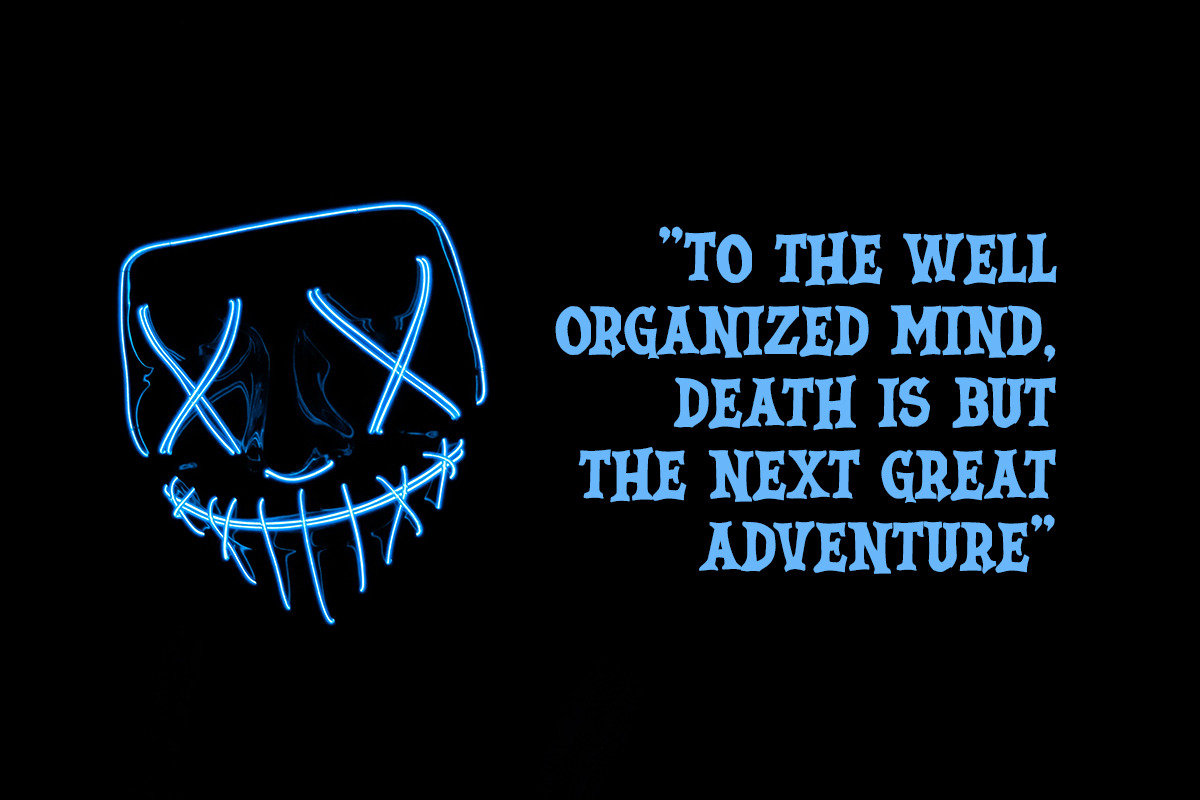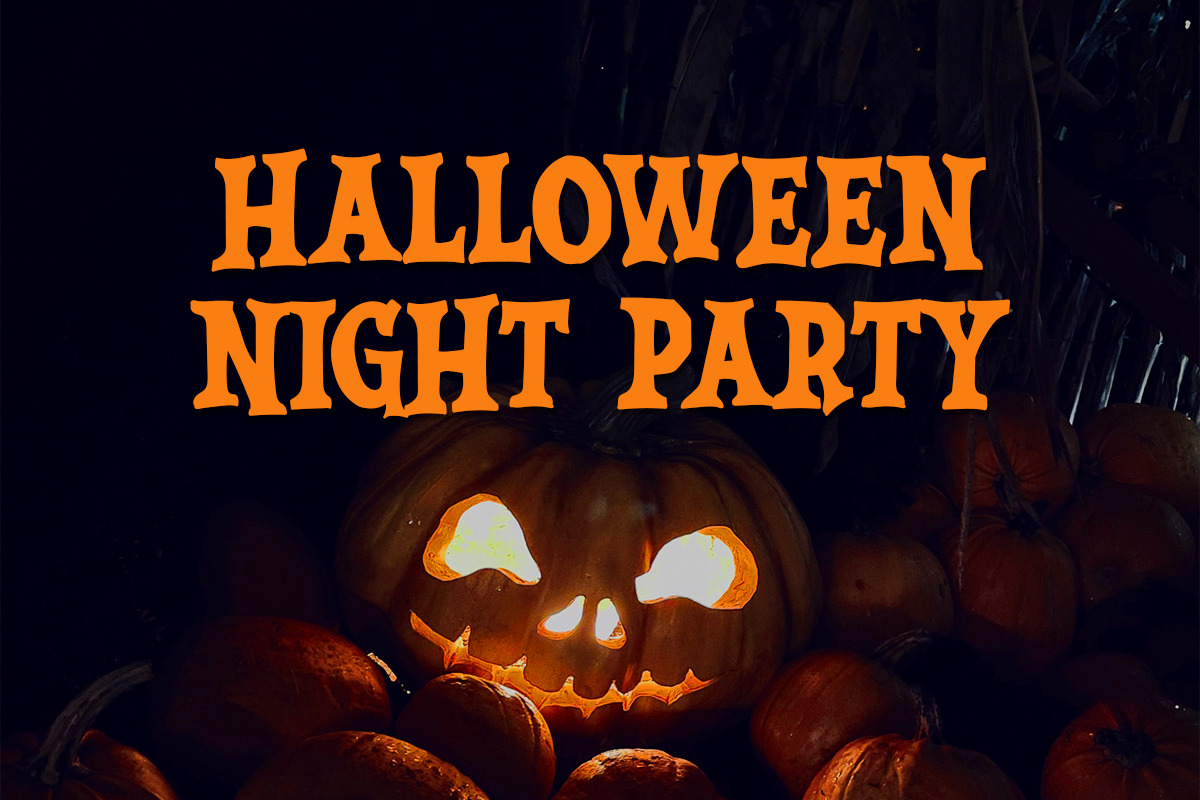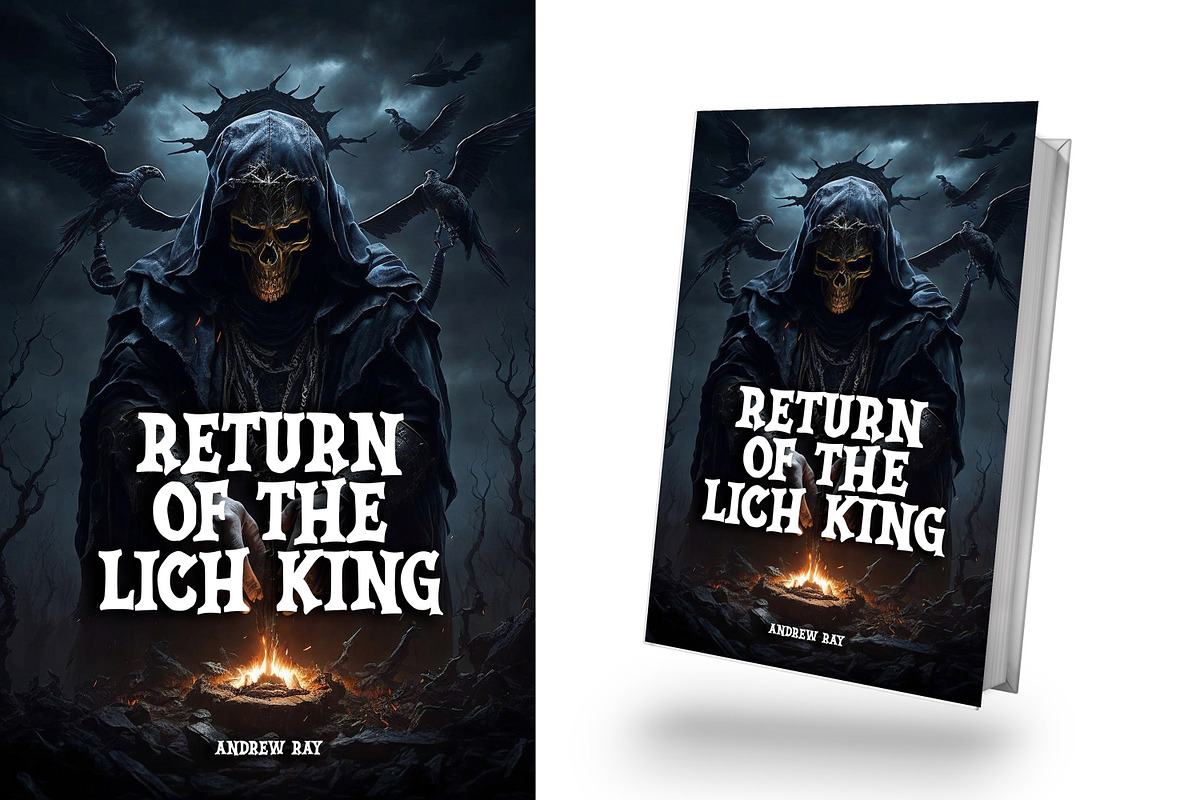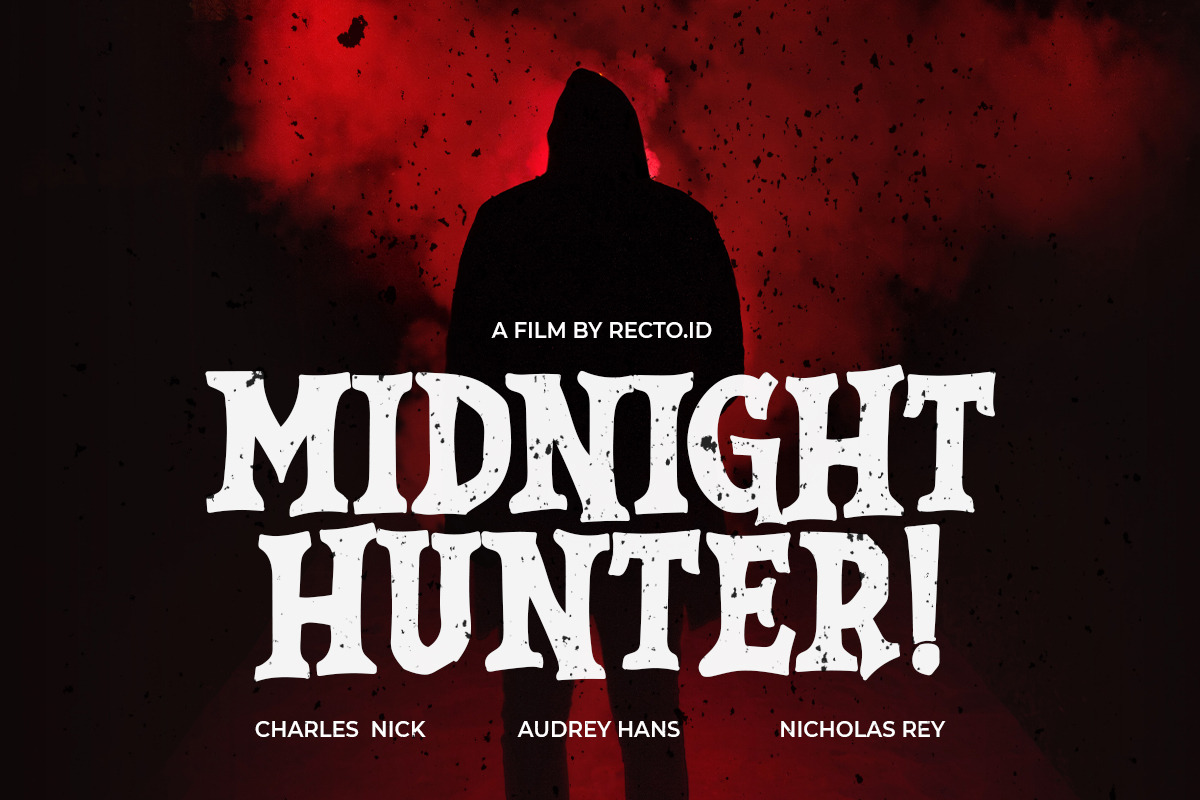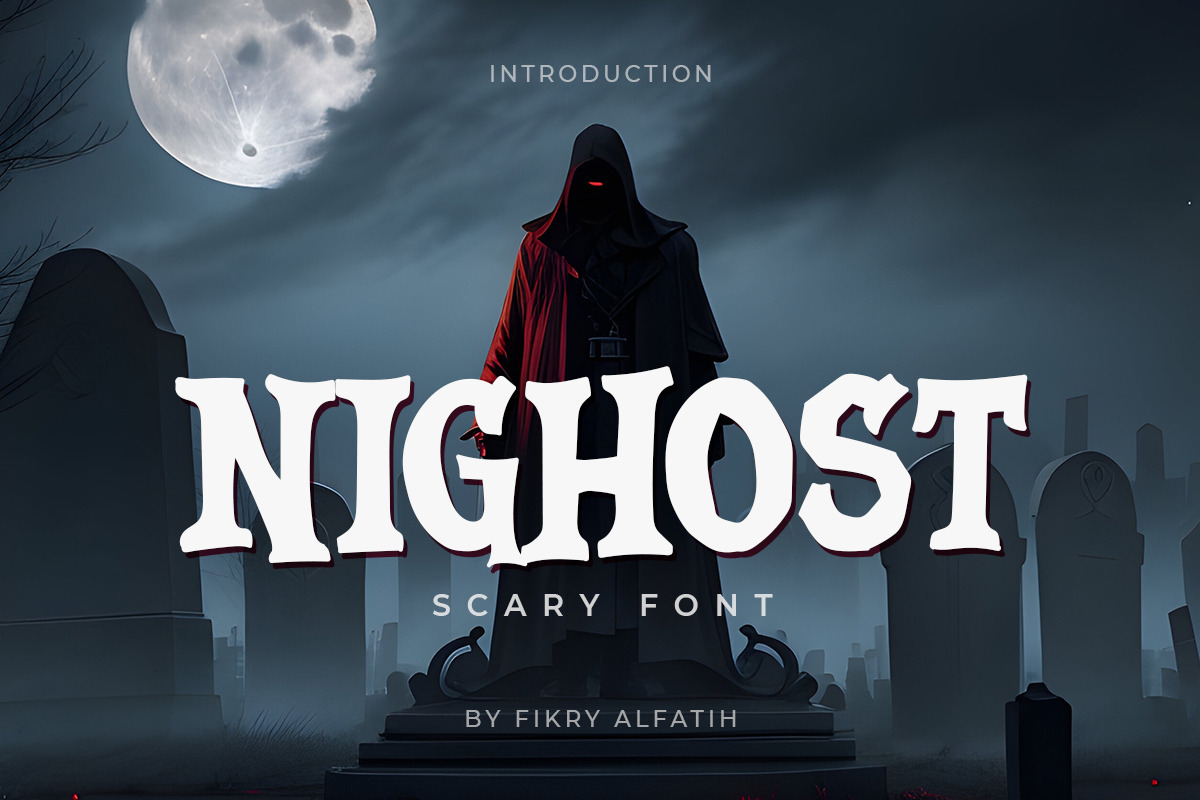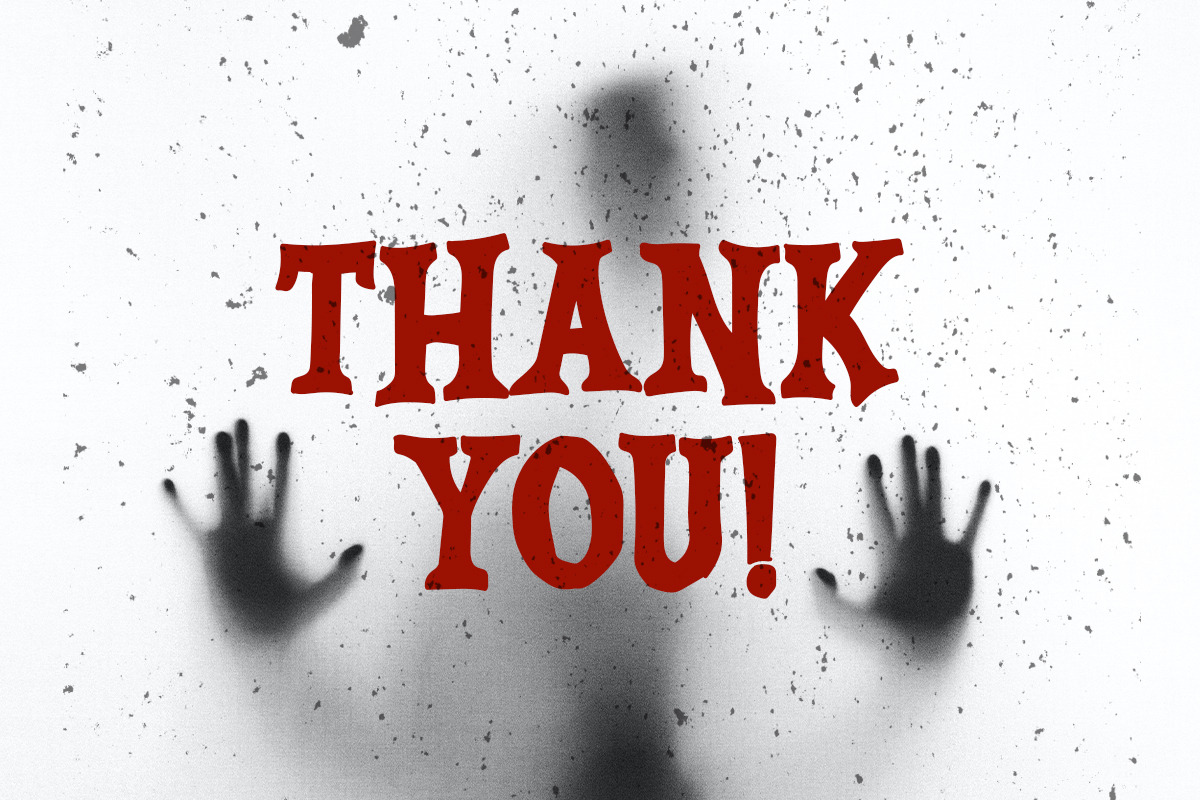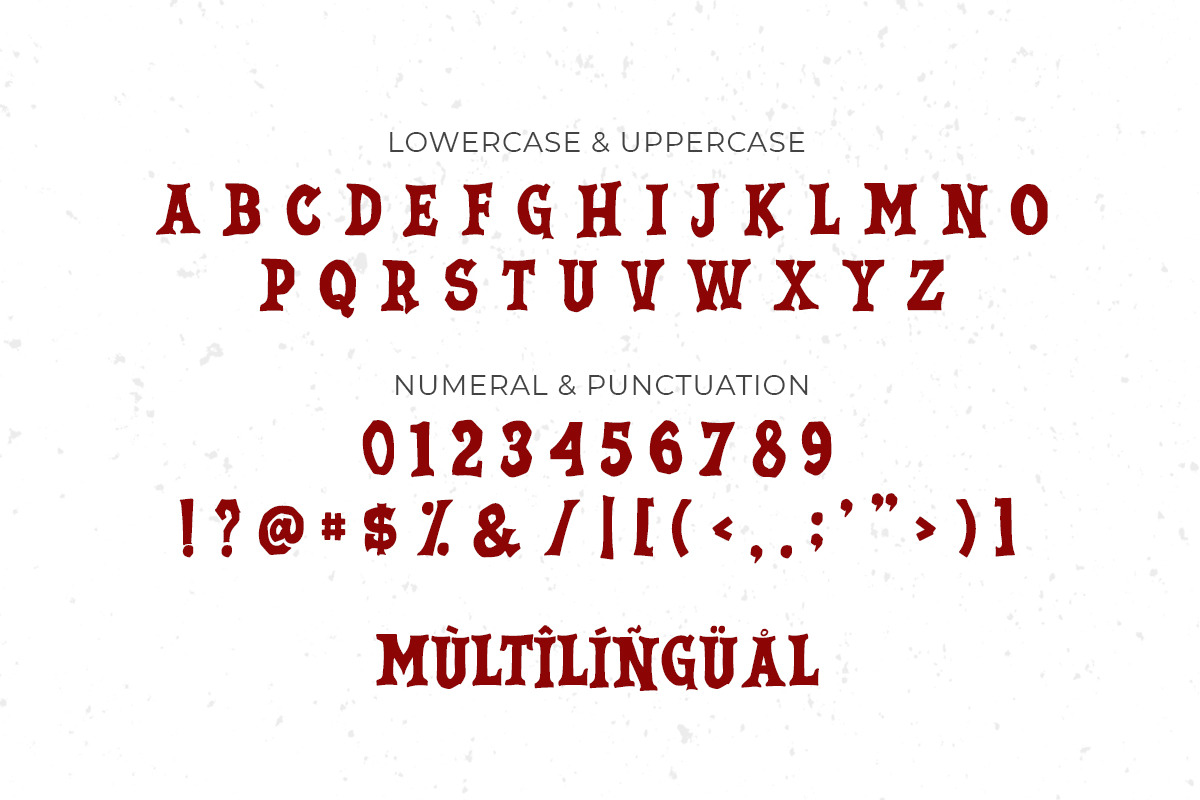
Nighost - Spooky Font
Nighost is a font created to complement your Halloween party, and various other formal forms such as posters, labels, logos, movies, greeting cards, novels or any other type. advertising purposes. Spooky and mysterious, this display font is guaranteed to make your projects stand out from the crowd.
- uppercase